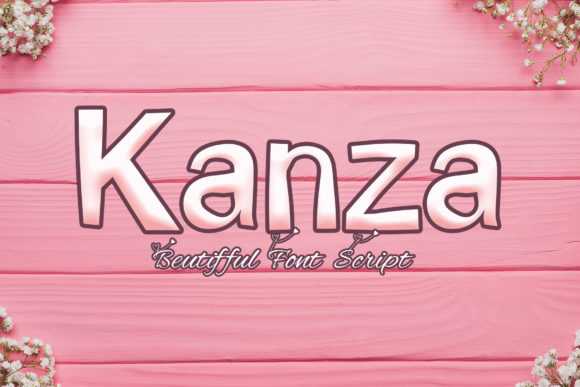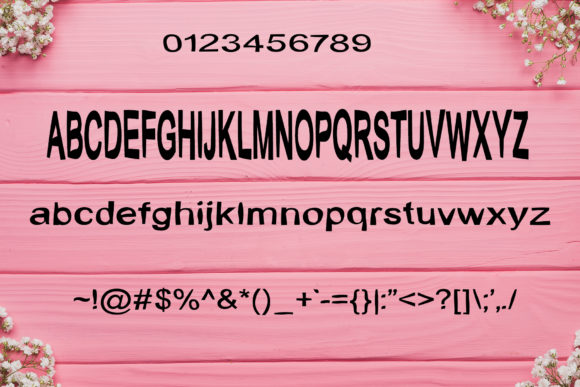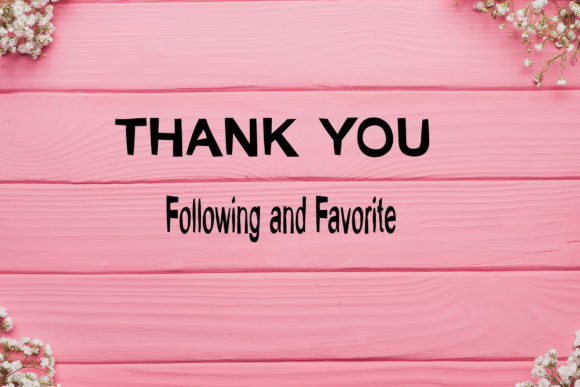
HomePersonal Use FreeKanza Personal Use Free Kanza FacebookTwitterPinterestWhatsApp 1 of 3 About Kanza Font Kanza is a simple and bold display font. Incredibly versatile, this font will become your top choice in no time! DOWNLOAD NOW People also explored Ambition Booker Font Black Jacky Font Good Butter Font Angellyne Script Font Malinau Calls Font Minori Font Marlosta Hanista Font Wedding Font White Coffee Font 133 0 TagsKanza Bethirk FontKanza Font Previous articleAngelittaNext articleDelions LEAVE A REPLY Cancel reply Comment: Please enter your comment! Name:* Please enter your name here Email:* You have entered an incorrect email address! Please enter your email address here Website: Save my name, email, and website in this browser for the next time I comment. Personal Use Free Panaroe Personal Use Free Read more about this font Vuldo Personal Use Free Read more about this font Loving You Personal Use Free Read more about this font Edo SZ Personal Use Free Read more about this font BLOG Using Fonts in Digital Marketing: Tips to Strengthen Your Brand Identity In the realm of digital marketing, every visual element plays a crucial role in shaping a brand's identity, and fonts are no exception. The... Transform Your Website: Elevate Your Typography with 7 Best Web Font Generators The 10 Best Handwriting Fonts to Add Personality to Your Designs Where to Buy American Fonts Online in 2024